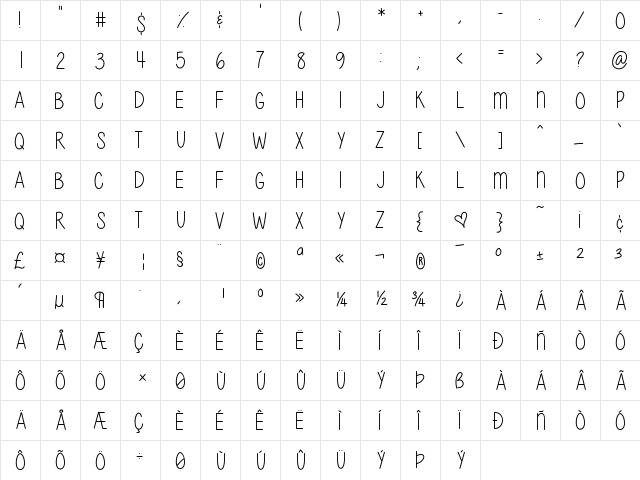
GiveMeTime Medium
Design Context for GiveMeTime Typeface
GiveMeTime offers clean, dependable letterforms without strong stylistic allegiance, making it a practical choice for designers who need flexibility.